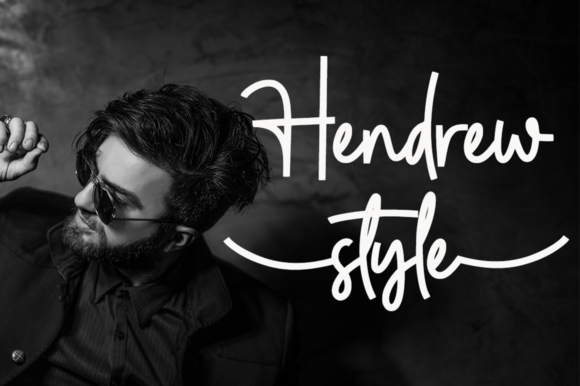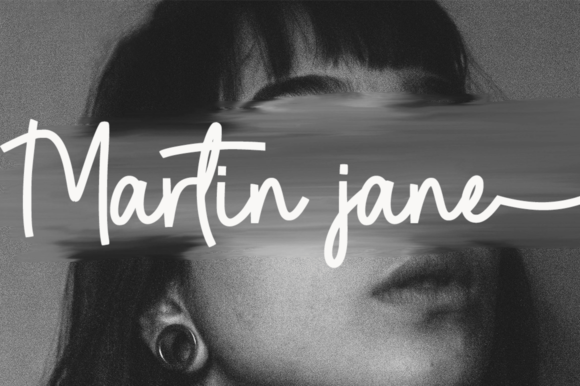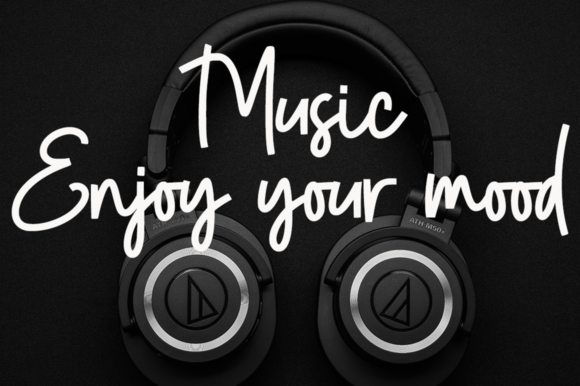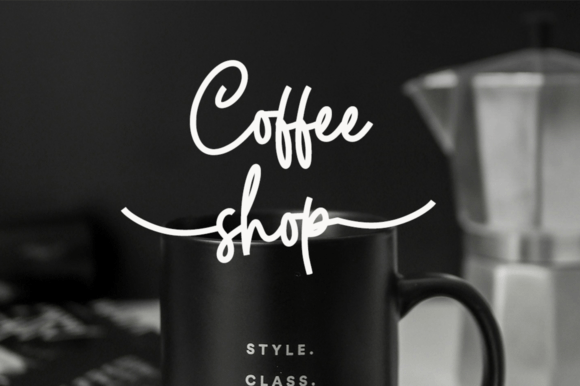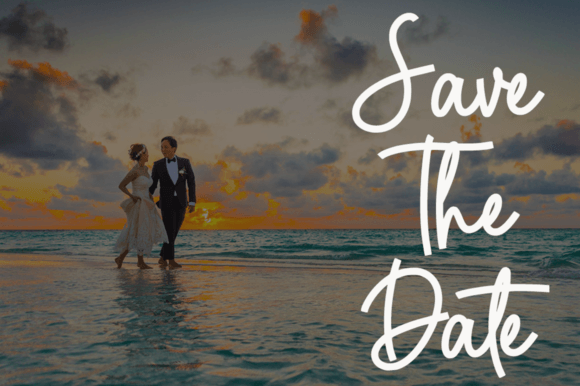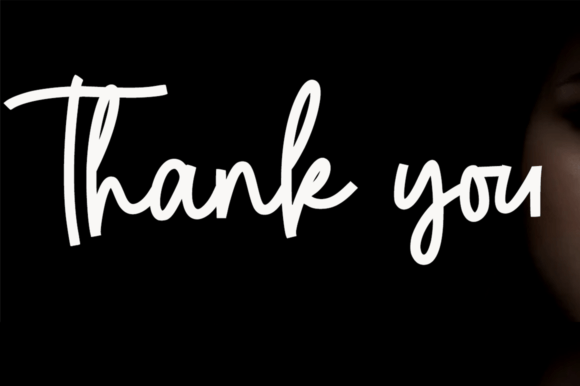
Introduction to Genshin Font
Remember that moment when you stumbled upon the perfect font for your creative project? The one that elevated your design from good to great, and left a lasting impression on your audience? For designers, finding that elusive font can be a game-changer. It’s the difference between a design that’s merely functional and one that truly speaks to the soul.
Enter Genshin Font, a beautifully organic handwritten font that’s about to become your new best friend. With its elegant strokes and relaxed sophistication, Genshin Font is the perfect design resource for adding a touch of individuality to your brand. Whether you’re creating logos, stationery, or invitations, this high-quality font is sure to make a lasting impression. And the best part? It’s available for free download, complete with a transparent background, making it easy to incorporate into any design.
So why is Genshin Font so valuable for designers? For one, its unique style allows you to stand out in a crowded market. Plus, its versatility makes it perfect for a wide range of creative projects, from social media posts to wedding designs. With Genshin Font, the possibilities are endless, and your designs will thank you.
Key Features of Genshin Font
- High-quality design resource suitable for various creative projects, including video games, anime, and manga.
- Designed with a unique aesthetic, blending elements of fantasy and adventure, making it perfect for projects with a similar theme.
Honest Review: Genshin Font
I recently had the chance to work with the Genshin Font, and I must say it’s a lovely addition to any design project. As a free download, it’s definitely a valuable resource for designers like myself.
The font itself is quite elegant, with a beautiful, cursive design that’s perfect for creative projects. One of the standout features is the transparent background option, which makes it easy to customize and integrate into your design. ✨
- Perfect for logos, headers, and other design elements
However, I did notice a few limitations. ⚠️ The font selection is relatively limited, and it may not be suitable for all types of projects. Additionally, the font file size is a bit large, which can impact loading times.
Overall, I’m quite impressed with the Genshin Font. While it may not be perfect, it’s a great addition to any design arsenal, and I’d definitely recommend it to fellow designers.
Getting the Most Out of Genshin Font
For optimal results, use the Genshin Font with a transparent background to achieve a seamless integration with your design elements. Experiment with different font sizes and styles to find the perfect balance for your creative project.
The Genshin Font is ideal for various design projects, including:
- Brand identity
- Typography-based designs